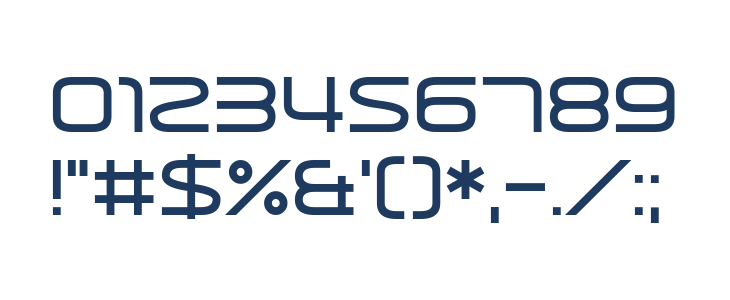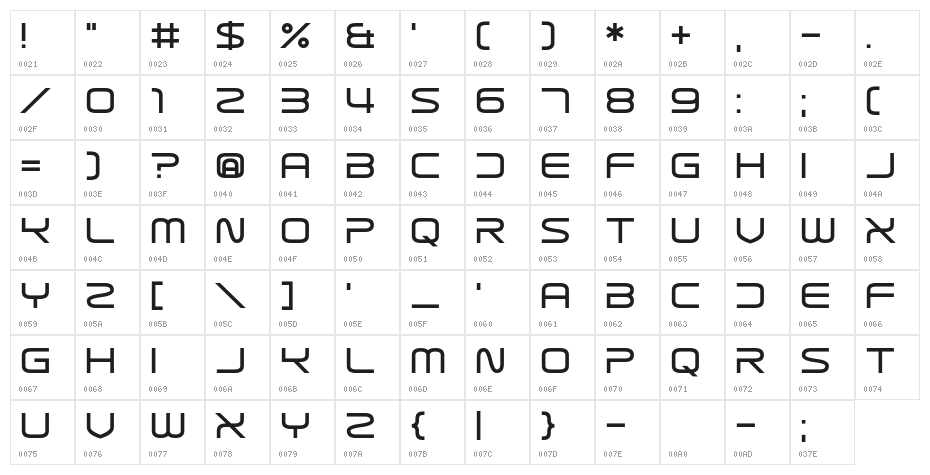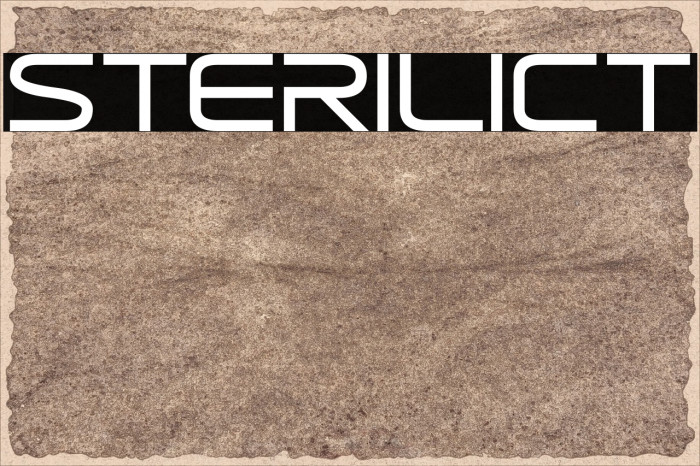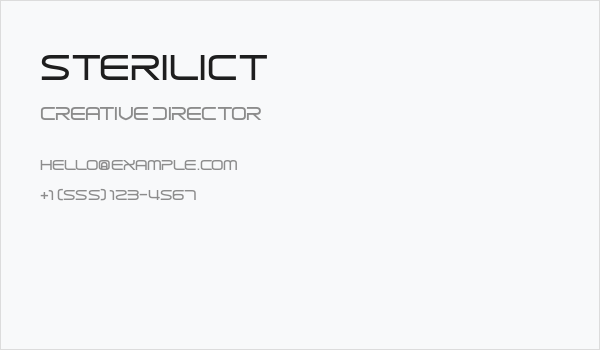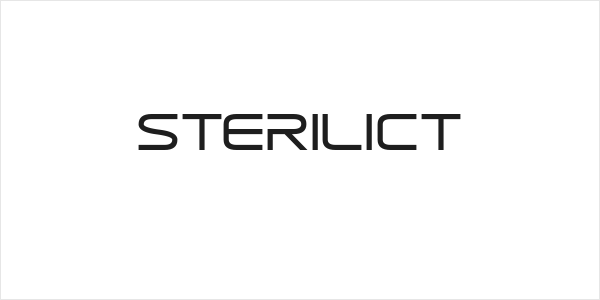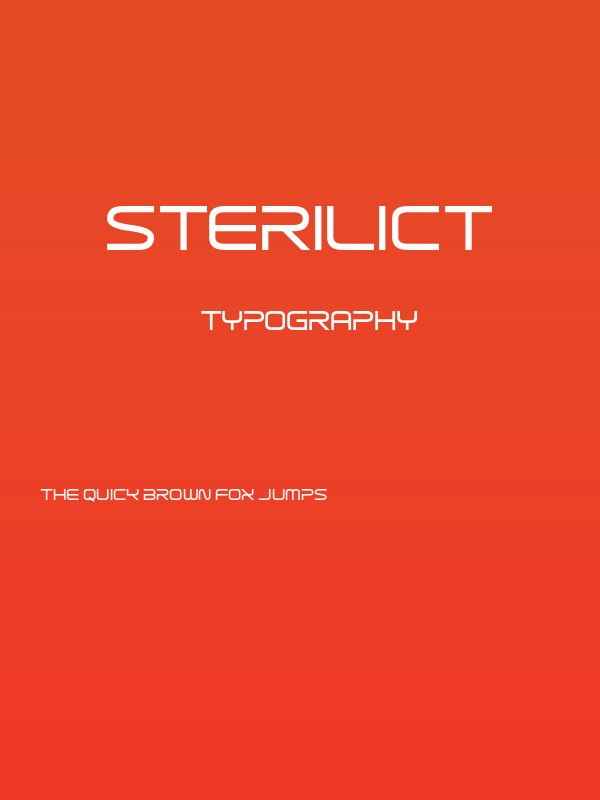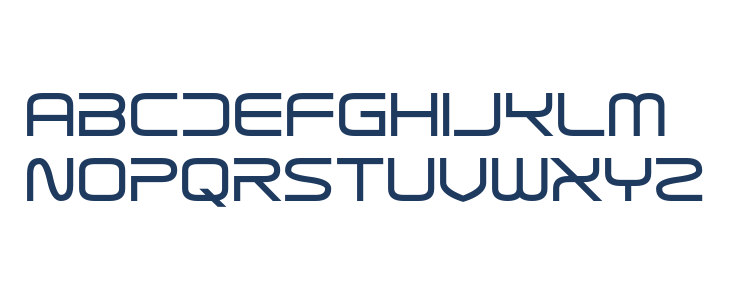
Sterilict Font
Sterilict Description
This font features a futuristic and geometric design, characterized by its clean lines and minimalistic style. The uppercase letters are uniform in height, with a consistent stroke width that gives it a modern and sleek appearance. The rounded edges and open counters add a touch of softness to the otherwise technical look. The numerals and special characters maintain the same aesthetic, ensuring a cohesive appearance across all glyphs. This font is highly legible and versatile, making it suitable for a variety of design applications.